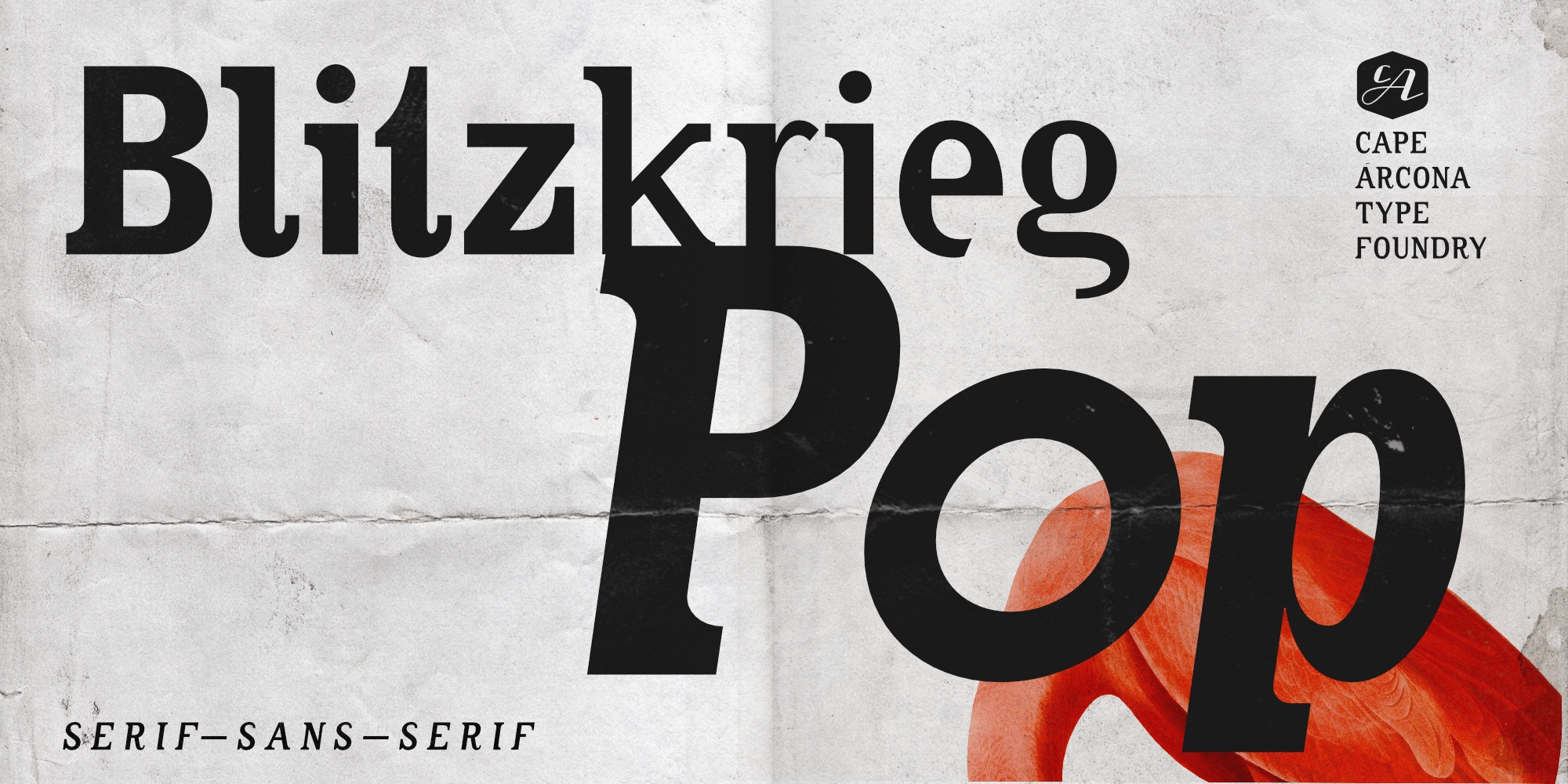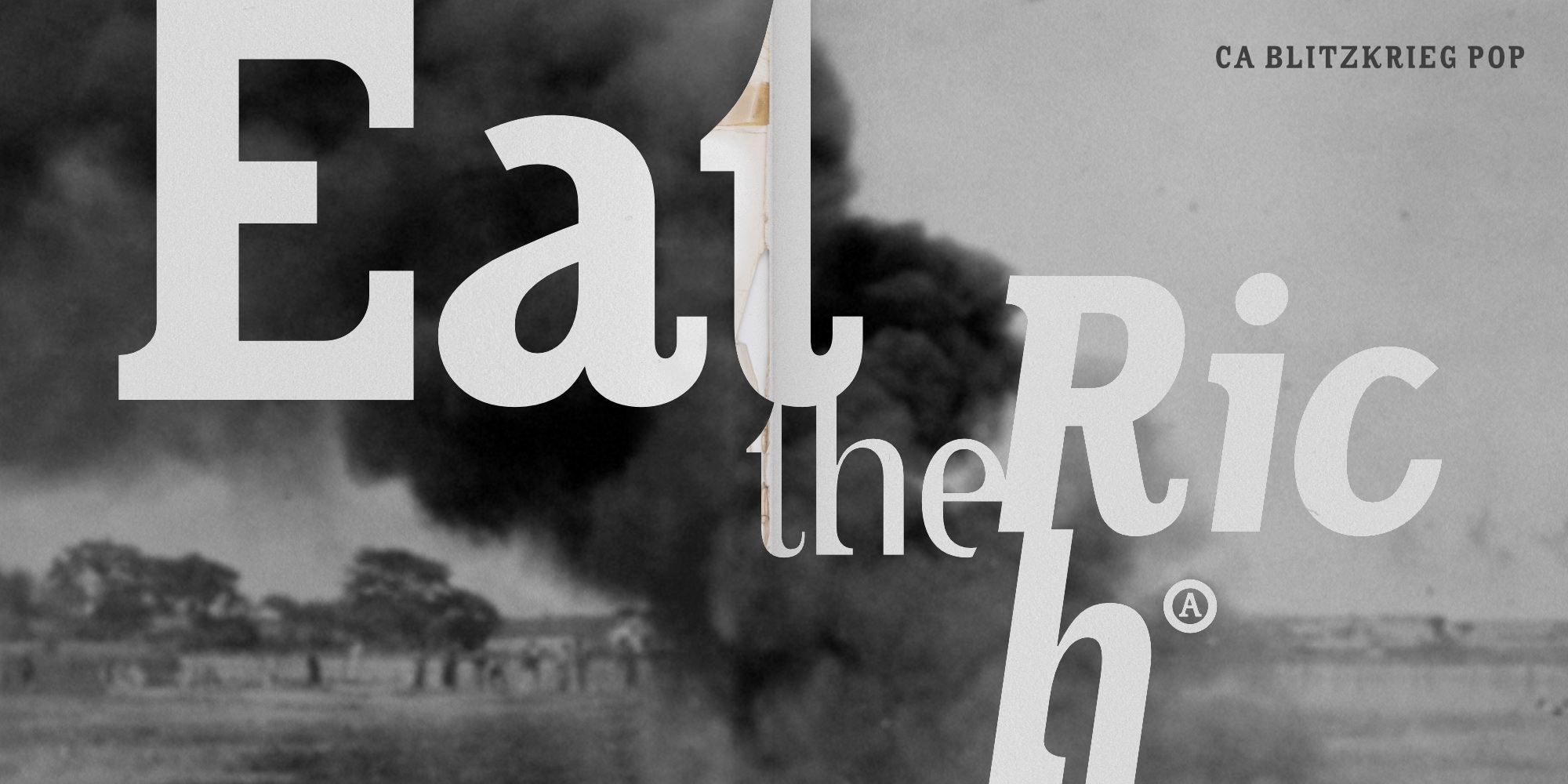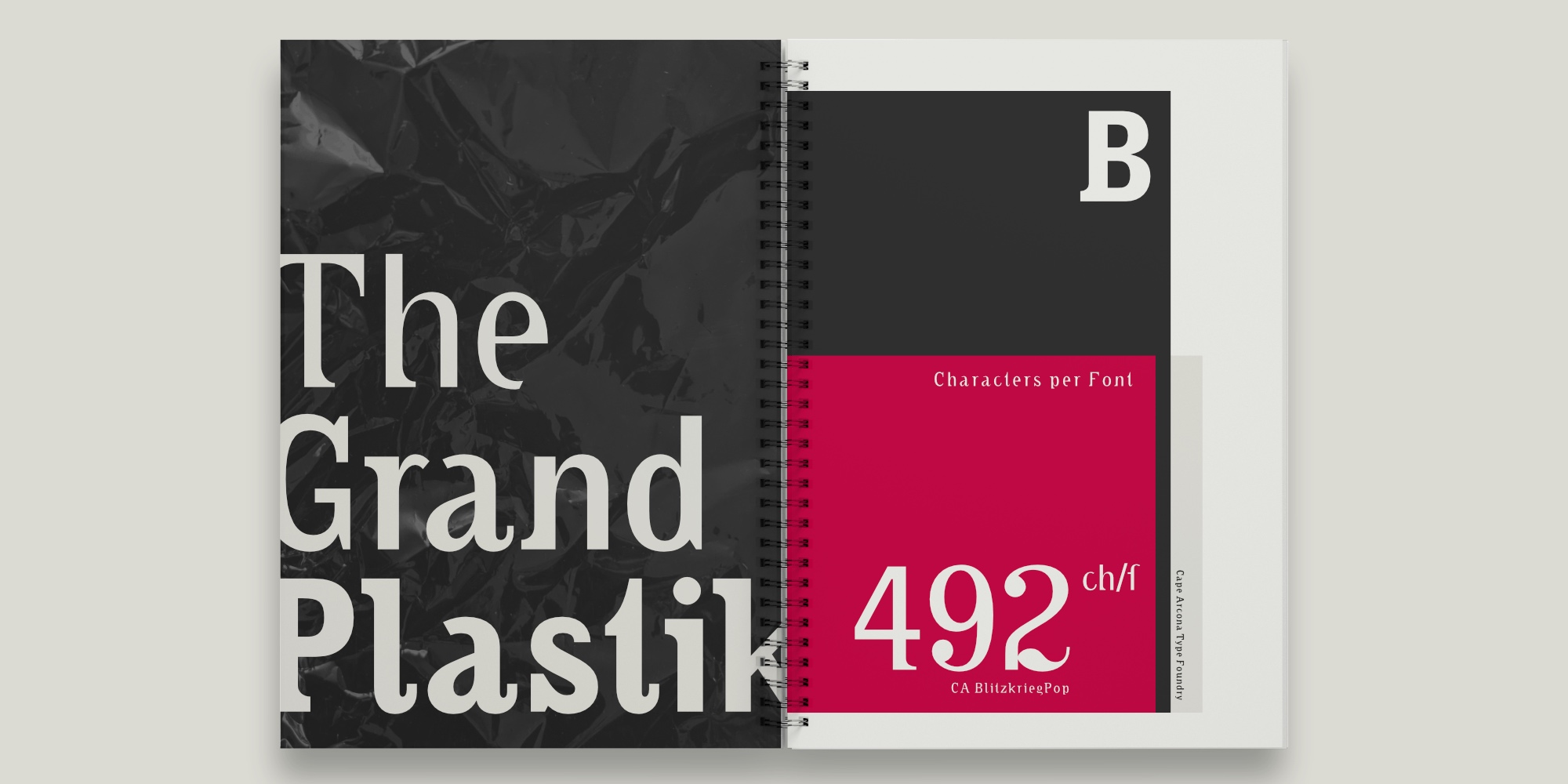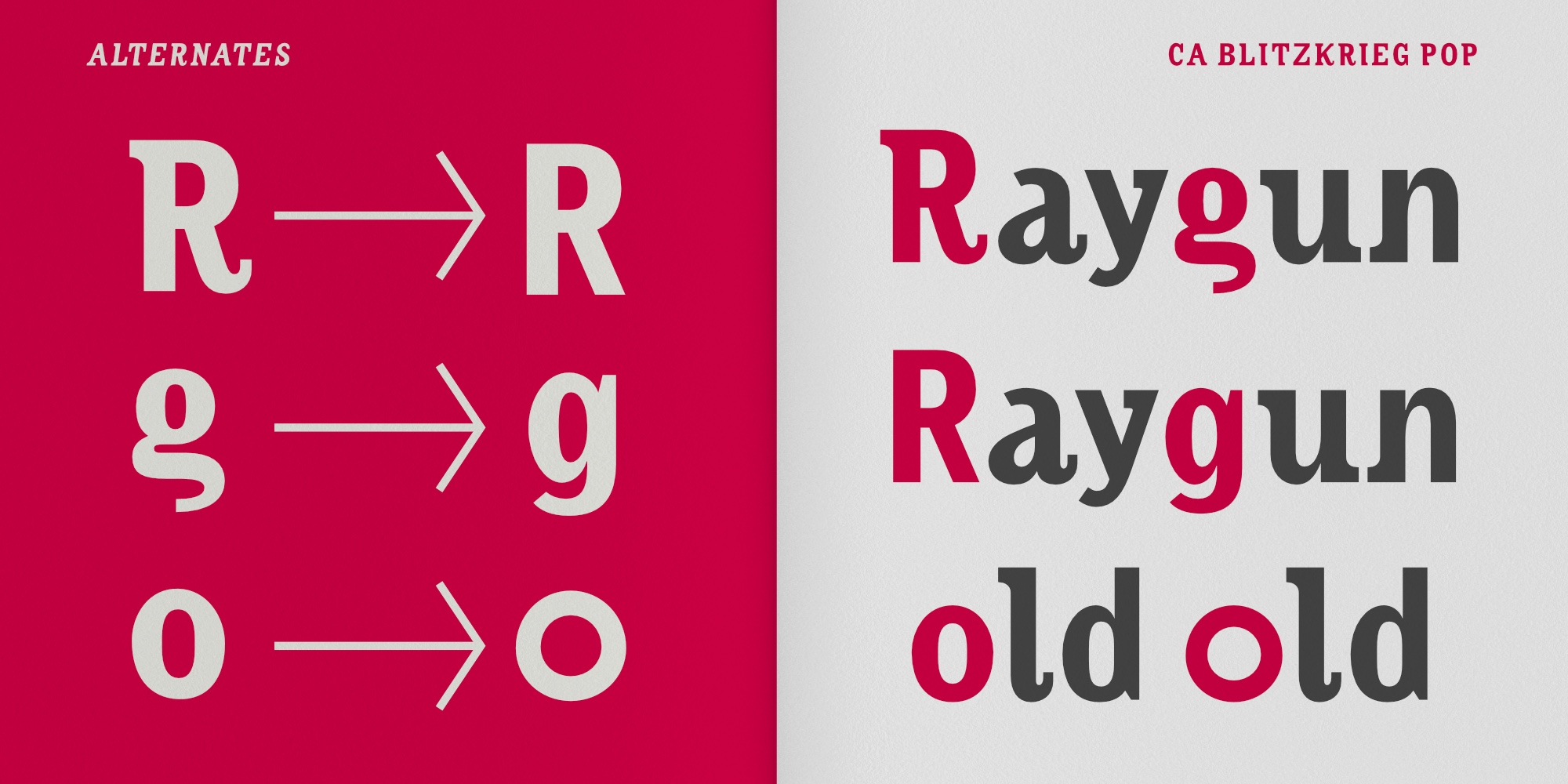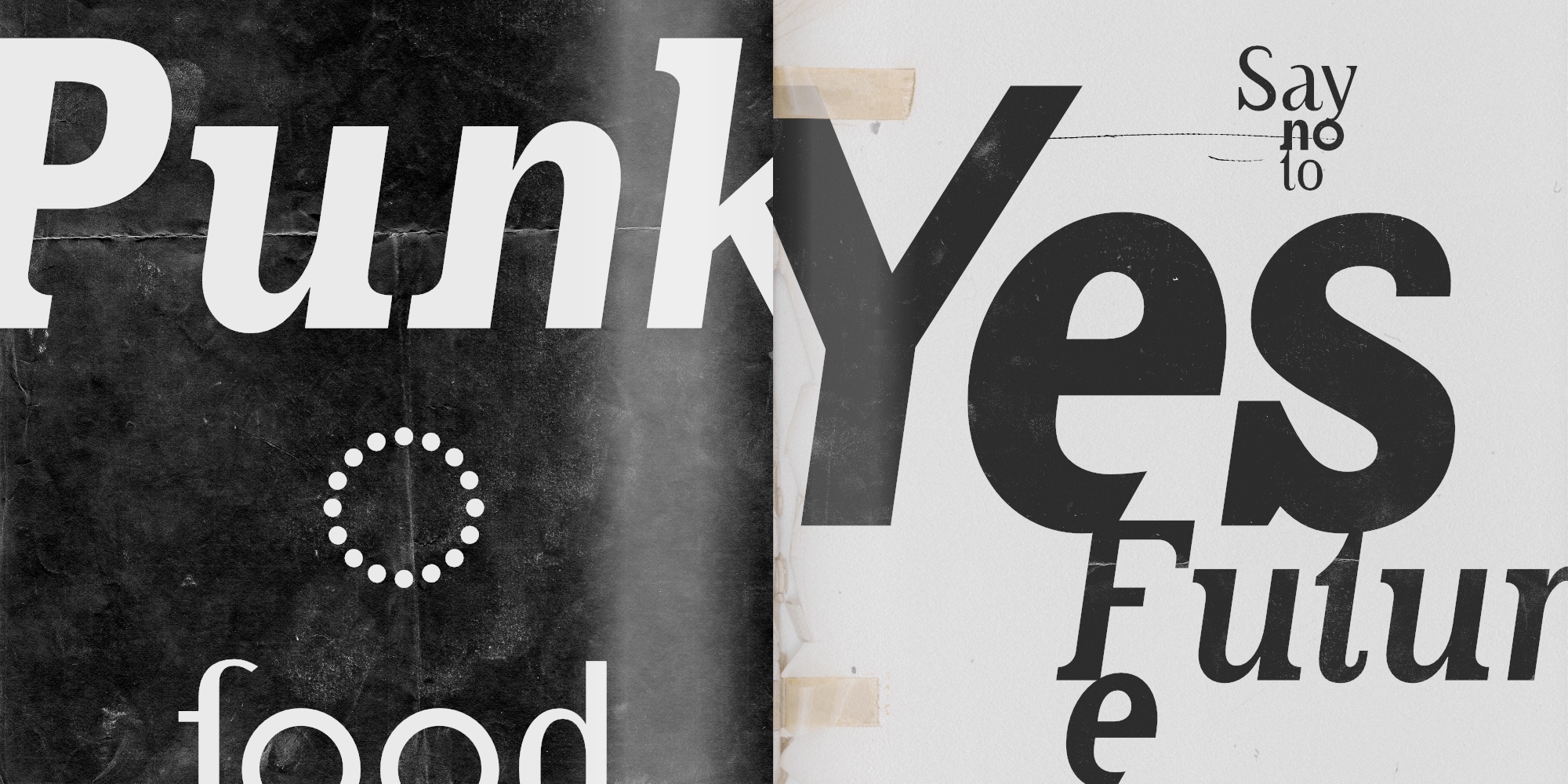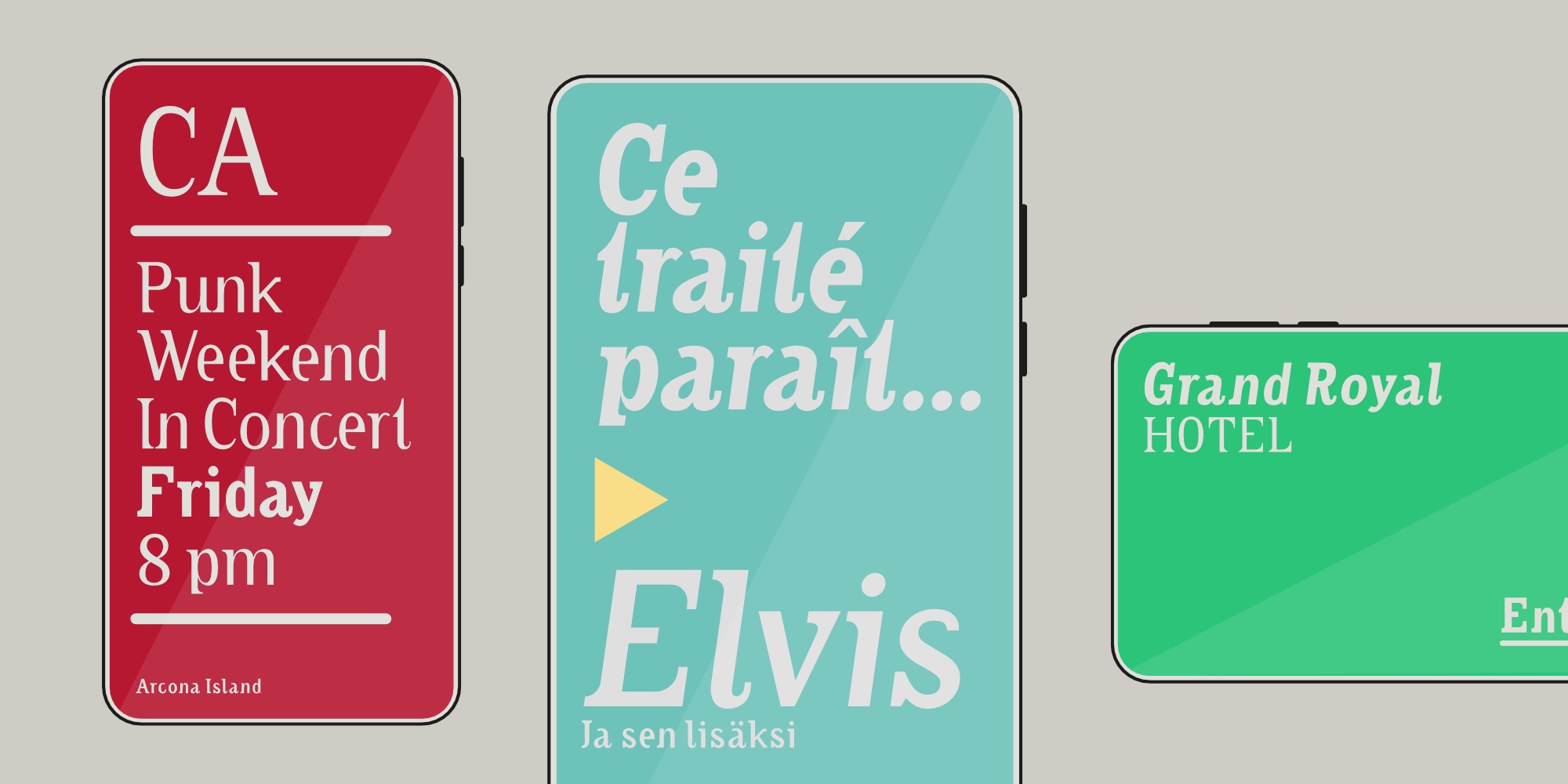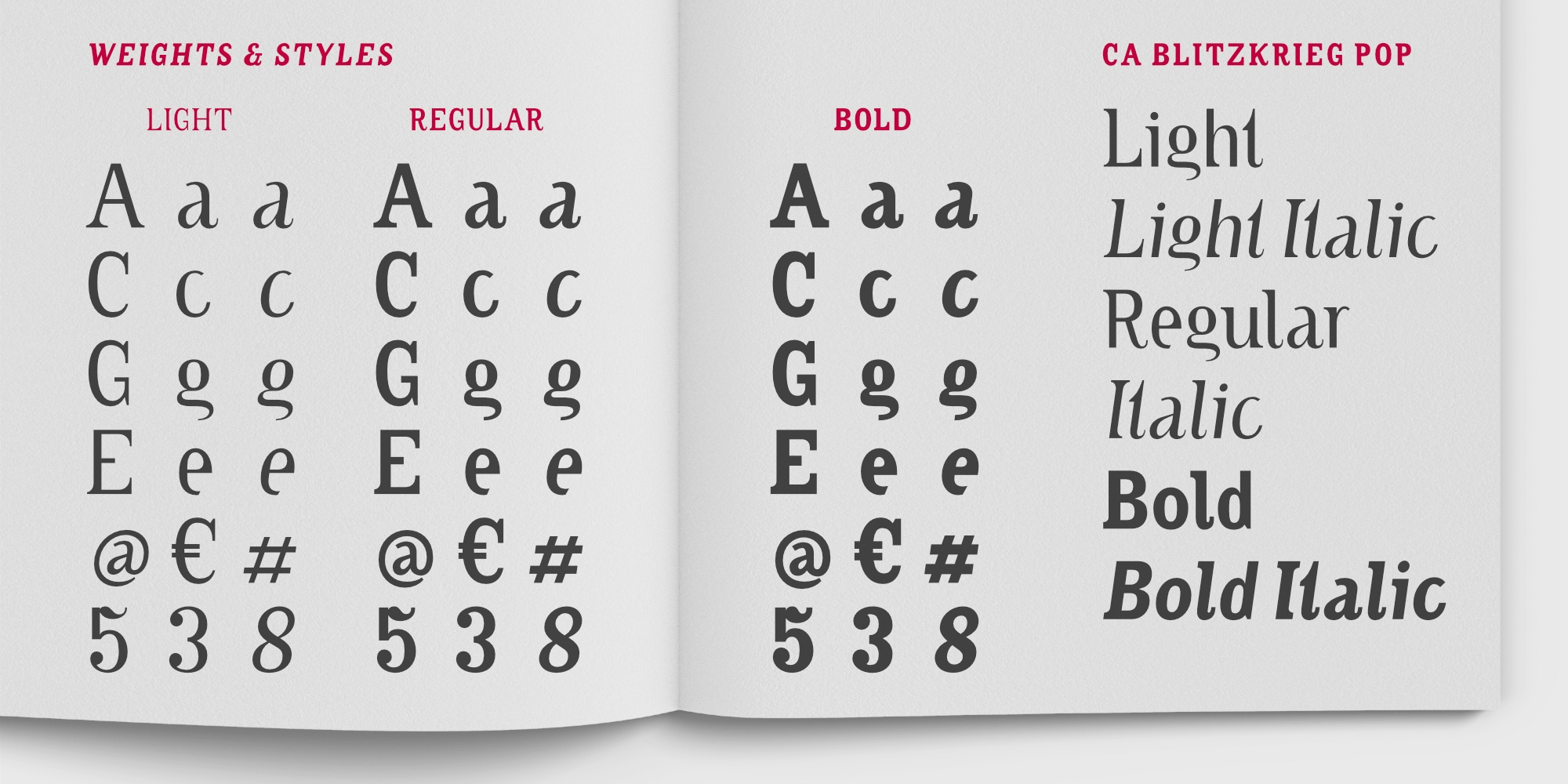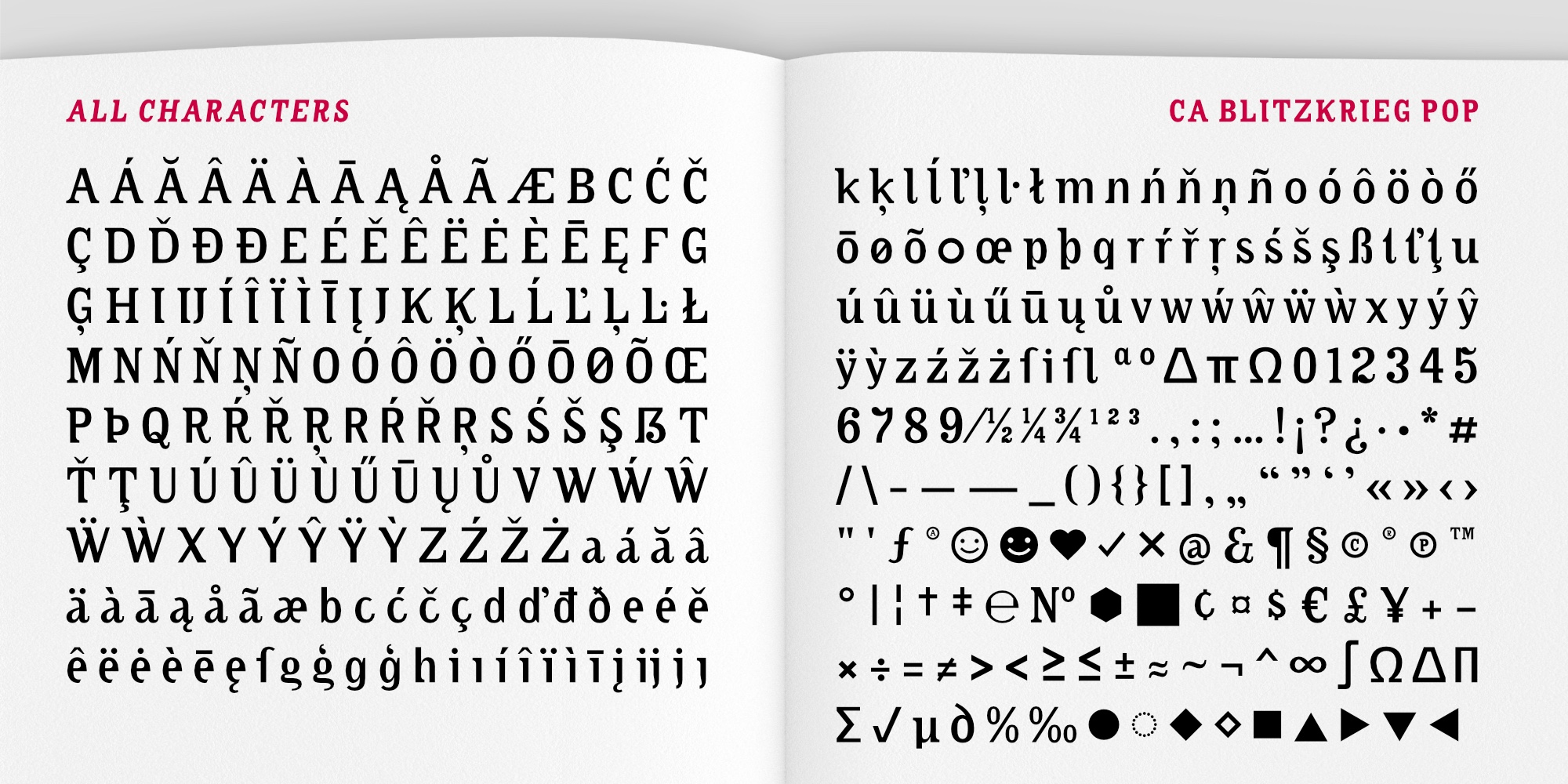
CA Blitzkrieg Pop is a rebellious mashup of serif and sans-serif, channelling the raw, unfiltered energy of the punk rock scene with a dash of Raygun-era cool. Born from the ’90s underground—where grunge zines, DIY gig posters, and loud, in-your-face attitude ruled—it screams boldness and refuses to be ignored. And no, despite the name, it’s not a tribute to a music classic (though we definitely dig the shoutout).
Melding the edgy precision of sans with the gritty soul of serif, CA Blitzkrieg Pop is built for headlines, logos, and short, punchy bursts of text that hit like a power chord.
Offered in Light, Regular, and Bold weights with matching italics, plus a Variable Font for on-the-fly weight control. It even throws in a handful of alternate characters to add some extra riff and swagger.